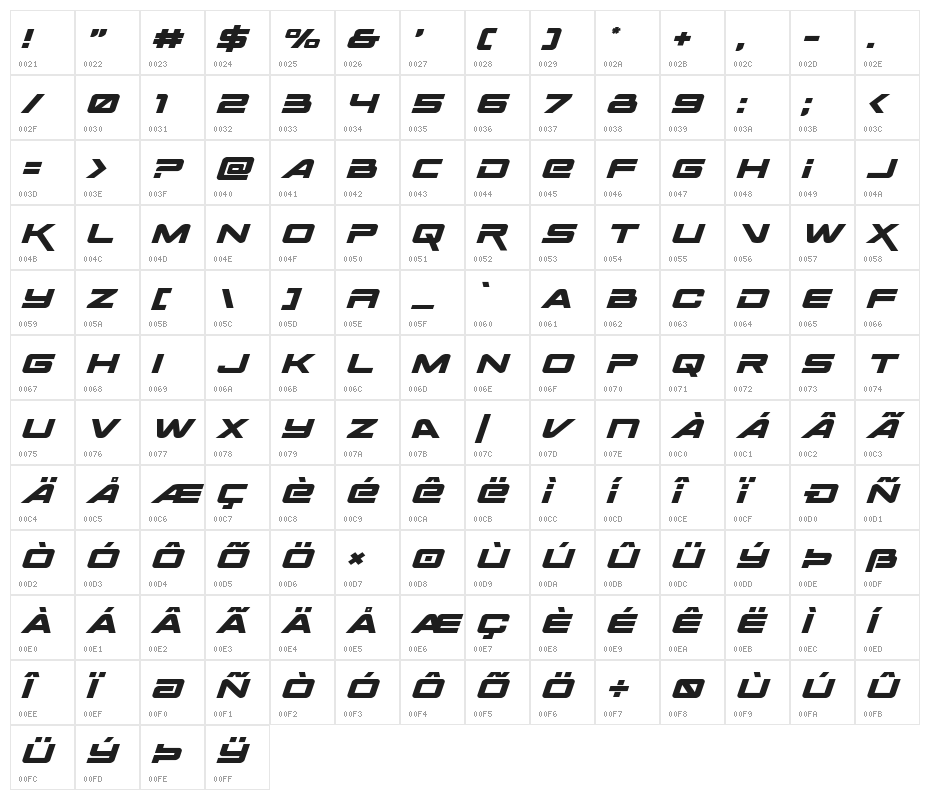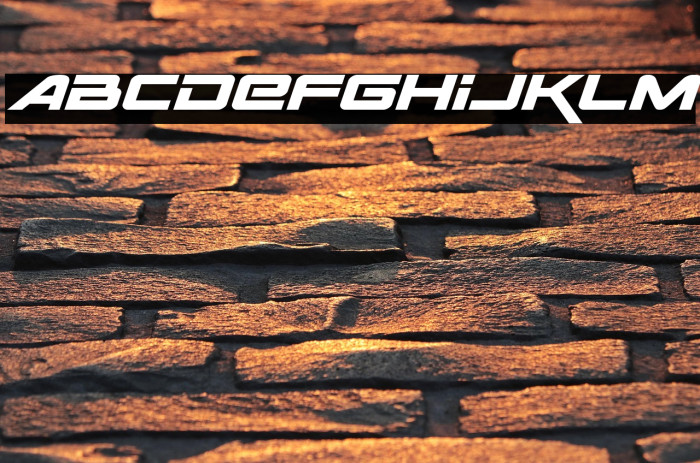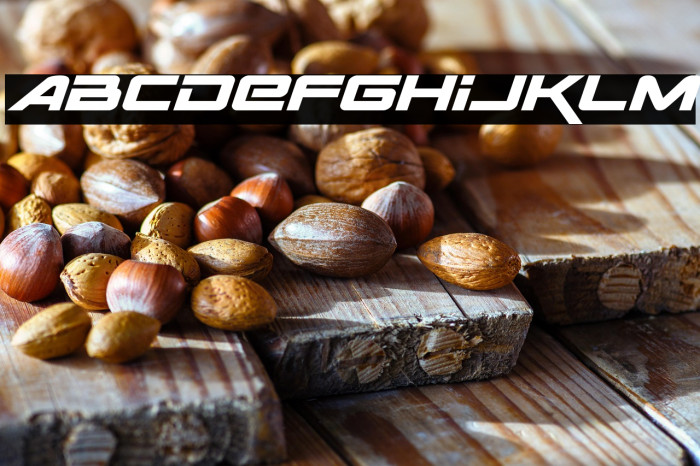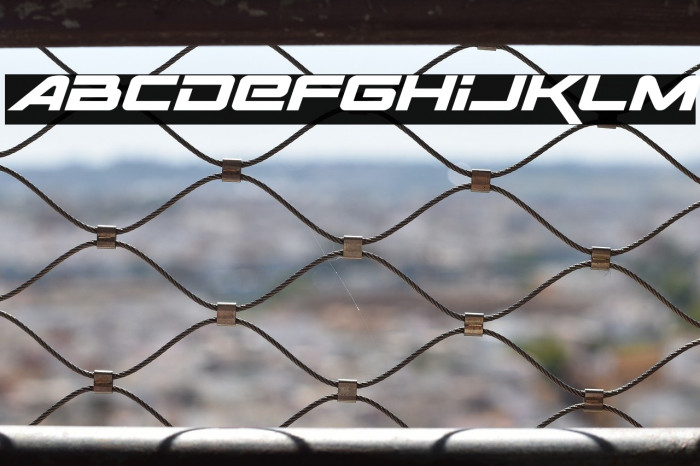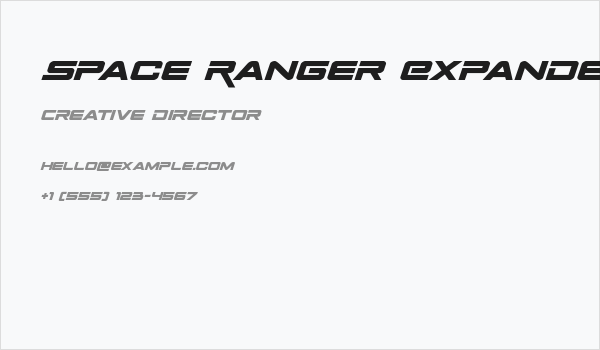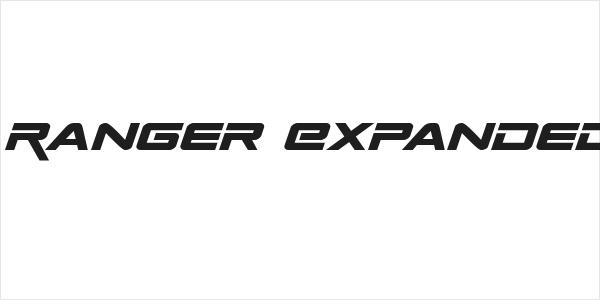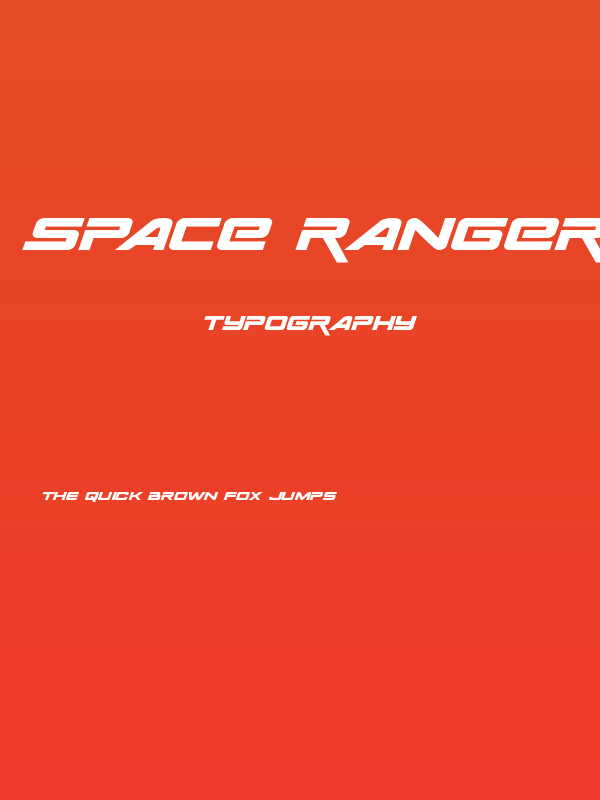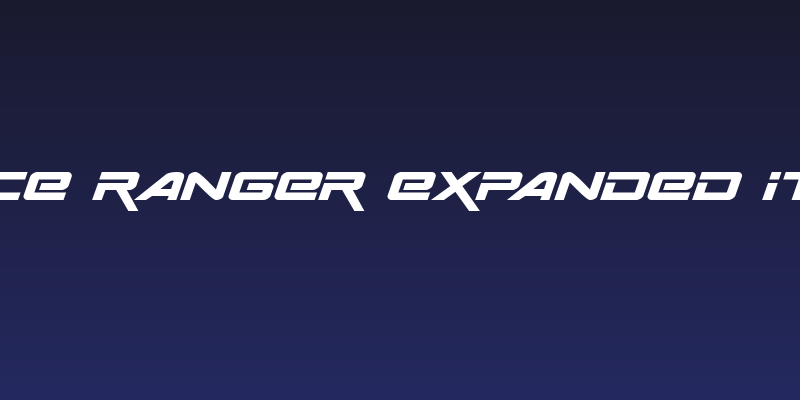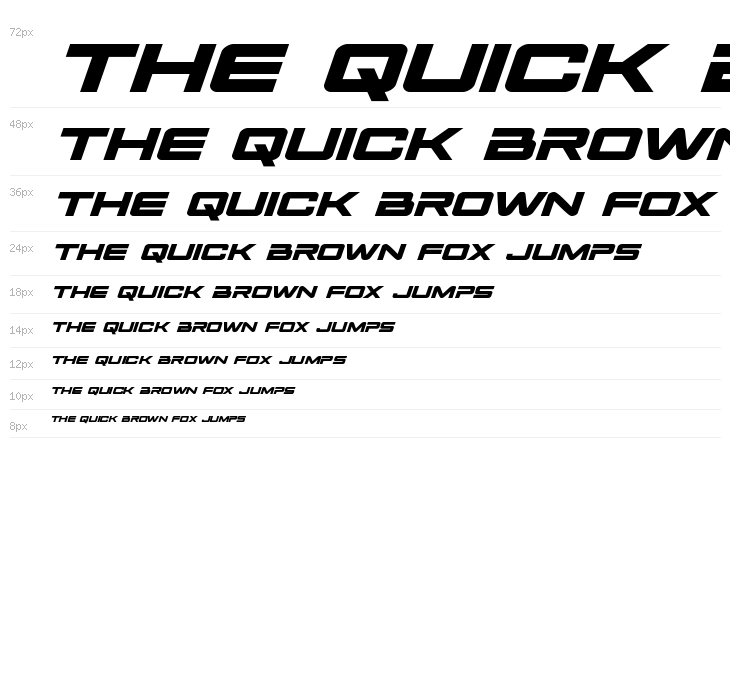
Space Ranger Expanded Italic Font
Space Ranger Expanded Italic Description
This font features a futuristic and dynamic style with a distinct italic slant, giving it a sense of motion and speed. The characters are bold and expanded, with sharp angles and clean lines that convey a modern and technological aesthetic. The uppercase and lowercase letters maintain a consistent design, while the numerals and special characters complement the overall theme. The font's expanded width and bold weight make it highly legible and impactful, suitable for projects that require a strong visual presence.
| Proposed Projects | Ideal for sci-fi themed designs, technology branding, video game titles, and futuristic posters. |